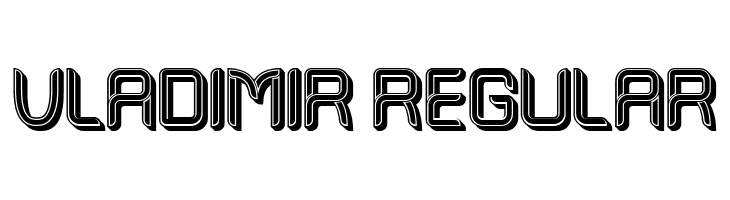
A bold, geometric font with a three-dimensional outline effect.
( Aulia Al Farabi )
A bold, cursive font with a smooth, flowing style.
( Fonts by Michael Sharanda )
A bold, modern sans-serif font with excellent readability.
A bold, modern sans-serif font with clean lines and strong presence.
( Fonts by Michael Sharanda )
A clean, modern sans-serif font with balanced proportions and excellent readability.
An ornate, Gothic-style font with elaborate flourishes and sharp, angular lines.